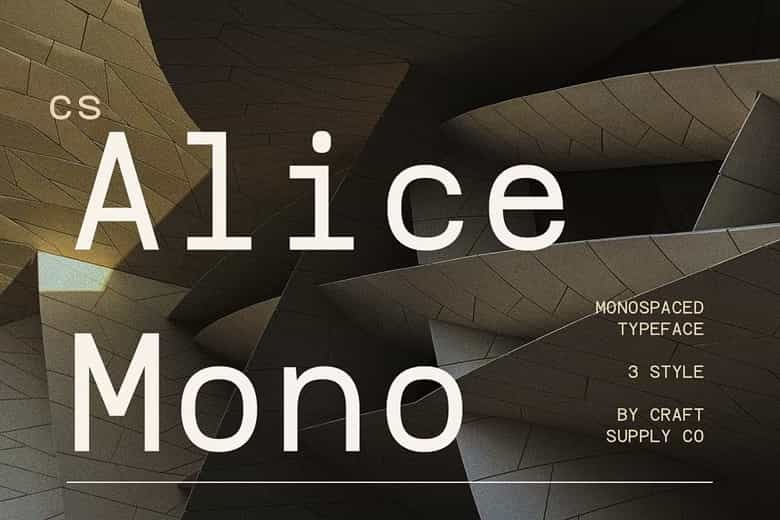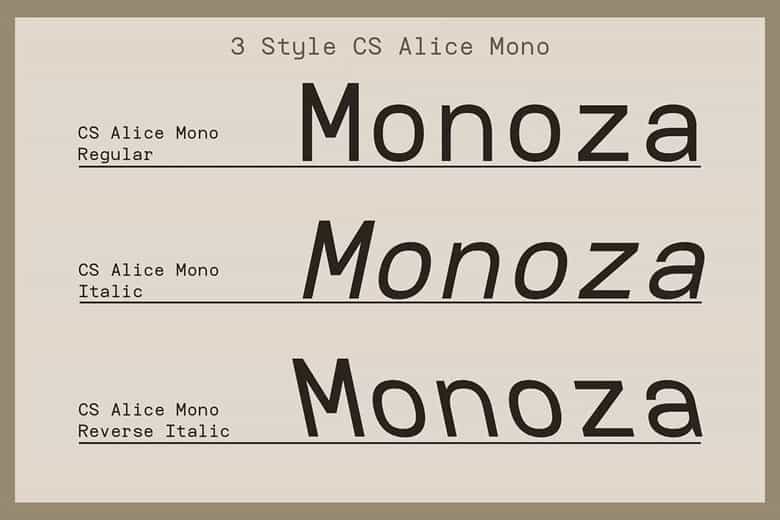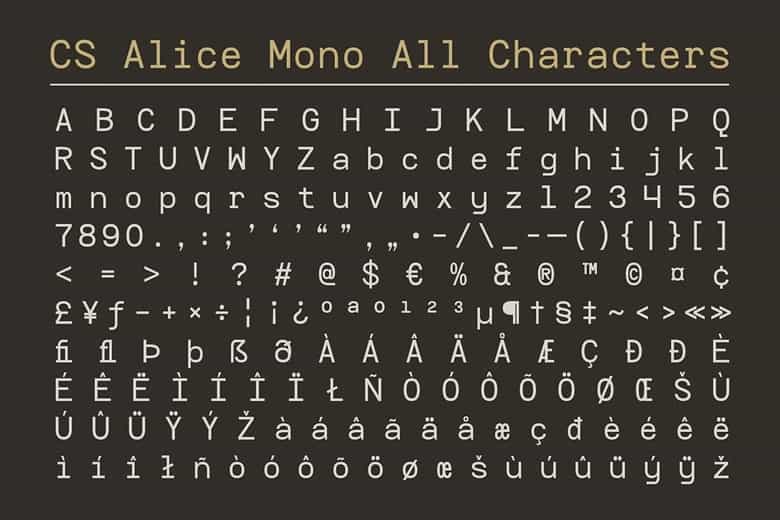
CS Alice Mono is a contemporary monospace sans serif font with consistent letter gap for proper readability and accuracy in every project. That is why it has a minimalist and clear design that can be quite useful for business purposes.